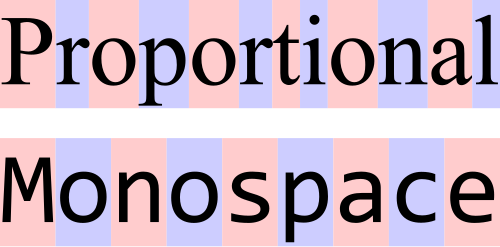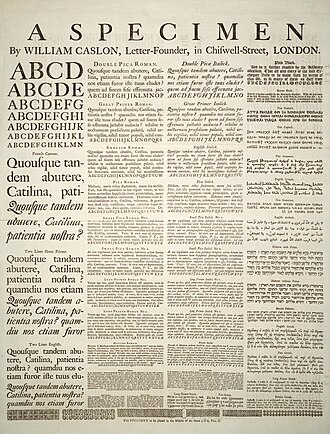
Typeface
A typeface is a design of letters, numbers and other symbols, to be used in printing or for electronic display. Most typefaces include variations in size, weight, slope, width, and so on. Each of these variations of the typeface is a font.
A Specimen, a broadsheet with examples of typefaces and fonts available. Printed by William Caslon, letter founder; from the 1728 Cyclopædia. source ↗
A typeface (or font family) is a design of letters, numbers and other symbols, to be used in printing or for electronic display.1 Most typefaces include variations in size (e.g., 24 point), weight (e.g., light, bold), slope (e.g., italic), width (e.g., condensed), and so on. Each of these variations of the typeface is a font.
There are thousands of different typefaces in existence, with new ones being developed constantly.
The profession of designing typefaces is called type design. Designers of typefaces are called type designers and are often employed by type foundries. In desktop publishing, type designers are sometimes also called "font developers" or "font designers." A typographer is someone who uses typefaces to design a page layout.
Every typeface is a collection of glyphs, each of which represents a grapheme – an individual letter, number, punctuation mark, or other symbol.a There are typefaces tailored for special applications, such as cartography, astrology or mathematics.
Terminology
A diagram of a cast metal sort. a: face, b: body or shank, c: point size, 1: shoulder, 2: nick, 3: groove, 4: foot. source ↗
In professional typography,b the term typeface is not interchangeable with the word font,c because the term font has historically been defined as a given alphabet and its associated characters in a single size. For example, 8-point Caslon Italic was one font, and 10-point Caslon Italic was another. Historically, a font came from a type foundry as a set of "sorts", with a number of copies of each character included.
As the range of typeface designs increased and requirements of publishers broadened over the centuries, fonts of specific weight (blackness or lightness) and stylistic variants—most commonly regular or roman as distinct from italic, as well as condensed—have led to font families, collections of closely related typeface designs that can include hundreds of styles. A typeface family is typically a group of related typefaces which vary only in weight, orientation, width, etc., but not design. For example, Times is a typeface family, whereas Times Roman, Times Italic and Times Bold are individual typefaces making up the Times family. Typeface families typically include several typefaces, though some, such as Helvetica, may consist of dozens of fonts. In traditional typography, a font family is a set of fonts within the same typeface: for example Times Roman 8, Times Roman 10, Times Roman 12, etc. In web typography, the term "font family", as specified using the HTML code span style="font-family:, may equate to a "typeface family" or to a very broad category such as sans-serif that encompass many typeface families.
Another way to look at the distinction between a computer font and a typeface is that a computer font is the vessel—e.g. the software—that provides a set of characters with a given appearance, whereas a typeface is the actual design of such characters.2 Therefore, a given typeface, such as Times, may be rendered by different fonts, such as computer font files created by this or that vendor, a set of metal type characters etc. In the metal type era, a font also meant a specific point size, but with digital scalable outline fonts this distinction is no longer valid, as a single font may be scaled to any size.
The first "extended" font families, which included a wide range of widths and weights in the same general style emerged in the early 1900s, starting with ATF's Cheltenham (1902–1913), with an initial design by Bertram Grosvenor Goodhue, and many additional faces designed by Morris Fuller Benton.3 Later examples include Futura, Lucida, ITC Officina. Some became superfamilies as a result of revival, such as Linotype Syntax, Linotype Univers; while others have alternate styling designed as compatible replacements of each other, such as Compatil, Generis
PT Serif (above) and PT Sans (below) from the PT font superfamily, showing the similarities in letter structure source ↗
Font superfamilies began to emerge when foundries began to include typefaces with significant structural differences, but some design relationship, under the same general family name. Arguably the first superfamily was created when Morris Fuller Benton created Clearface Gothic for ATF in 1910, a sans-serif companion to the existing (serifed) Clearface. From a typographer's perspective, the "superfamily" designation does not include sets of unrelated typefaces marketed with the same or similar family names. For example, the foundries that market Caslon Antique and Futura Black and Display named them in association with the Caslon and Futura families despite being structurally unrelated to those families. Consequently, typographers do not consider Caslon Antique and Futura Black/Display to be valid members of any Caslon or Futura 'superfamily'.
Additional or supplemental glyphs intended to match a main typeface have been in use for centuries. In some formats they have been marketed as separate fonts. In the early 1990s, the Adobe Systems type group introduced the idea of expert set fonts, which had a standardized set of additional glyphs, including small caps, old style figures, and additional superior letters, fractions and ligatures not found in the main fonts for the typeface. Supplemental fonts have also included alternate letters such as swashes, dingbats, and alternate character sets, complementing the regular fonts under the same family.4 However, with introduction of font formats such as OpenType, those supplemental glyphs were merged into the main fonts, relying on specific software capabilities to access the alternate glyphs.
Since Apple's and Microsoft's operating systems supported different character sets in the platform related fonts, some foundries used expert fonts in a different way. These fonts included the characters which were missing on either Macintosh or Windows computers, e.g. fractions, ligatures or some accented glyphs. The goal was to deliver the whole character set to the customer regardless of which operating system was used.